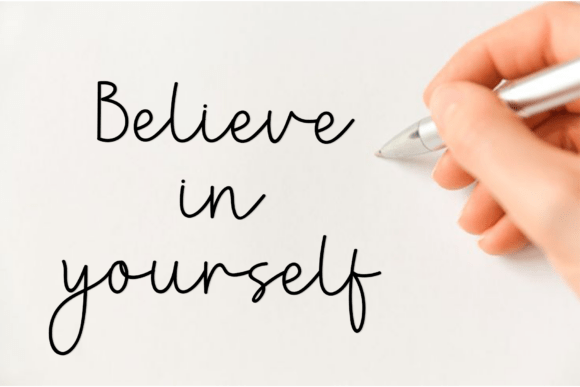
Natural Handwriting Font
Natural Handwriting is a charming and playful script typeface that captures the warmth and character of true handwritten lettering. With its decorative strokes and whimsical flair, it adds a personal and enchanting touch to any design. Ideal for greeting cards, invitations, quotes, product packaging, posters, and creative branding, this font brings a cheerful and nostalgic ambiance to your words.
Natural Handwriting lets your typography shine with authenticity and expressive style.